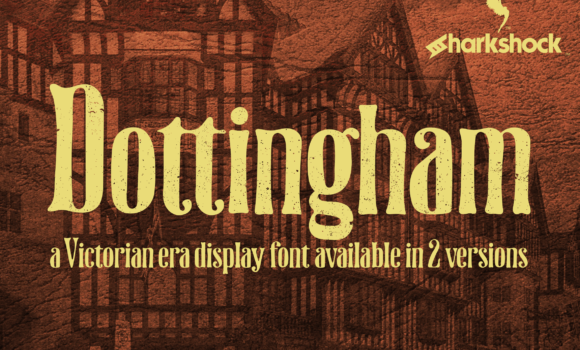
dottingham
Dottingham Font - Featured Image
Dottingham Font – Free Download Introduction to Dottingham Font Dottingham is a victorian and rough textured display font. 📸 Preview Gallery 1 image 📌 Product Name Dottingham Font 👤 Author Sharkshock 📂 Category Explore ⬇️ Download Dottingham Font FREE Free